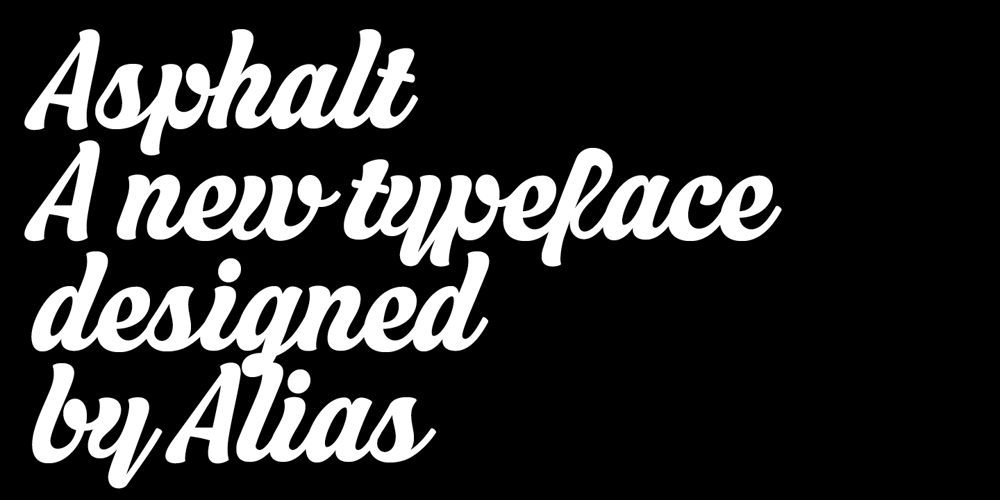
Asphalt
Asphalt font
Asphalt Font Family was designed by Gareth Hague and published by Alias. Asphalt contains 2 styles and family package options. Asperity, Asphalt and Aspic, were designed for Another magazine issues 18 and 19, A typeface in three versions, Hard, Soft and Script, three typefaces with the same character shape, where hard is angular, Soft is brushlike, and Script a painted-ish connected design. For Asphalt, Aspic’s brushy forms are connected into an expressive, striking script typeface. It has a feeling of having been painted by a sign writer, with a brush dipped in too much paint as it has a gloopy, fluid but still readable, quality. Signwriting is seemingly a dying craft, but as with other crafts outmoded by technology or the needs of speed and cheapness of delivery, it is highly revered. At its best it is hugely skilful, quirky, idiosyncratic and expressive. It can occasionally be naive and amateurish, but that’s good too. In a retail environment of familiar brands, any opportunity for individual expression should be cherished.